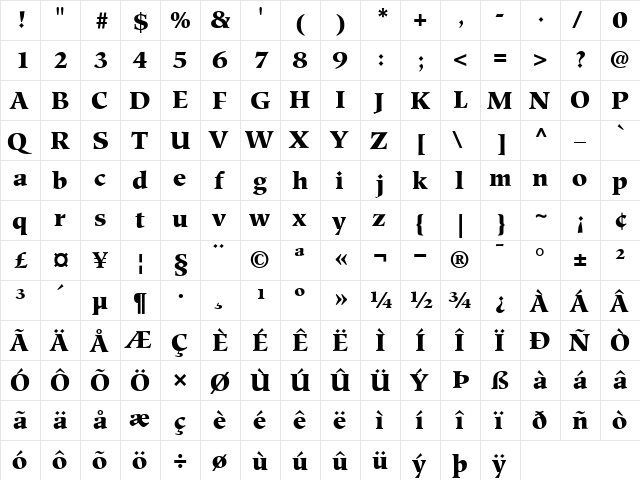
Hiroshige-Black Black
Design Context for Hiroshige-Black Typeface
Hiroshige-Black is a composed and adaptable typeface that performs quietly and consistently across a wide range of design contexts.